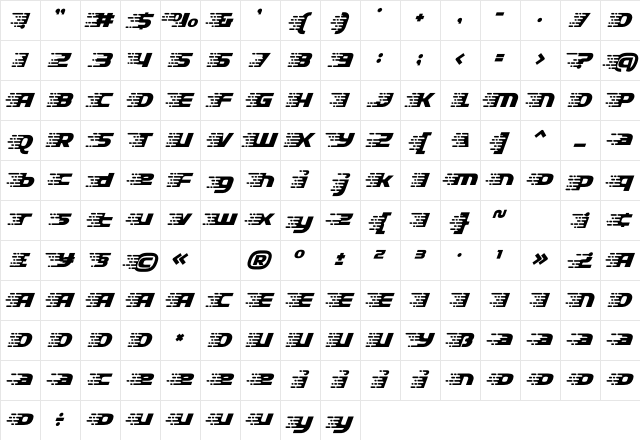
Rapido Racers Eight Free Font
Rapido Racers Eight
Style: Eight
Foundry: Putracetol Studio, Karanganyar.
Designer: Putra Novembria Candra Kusuma
Complete Rapido Racers Eight glyph index. Displaying only characters natively supported by Rapido Racers Eight font.
Design Context for Rapido Racers
Rapido Racers is a composed and adaptable typeface that performs quietly and consistently across a wide range of design contexts.